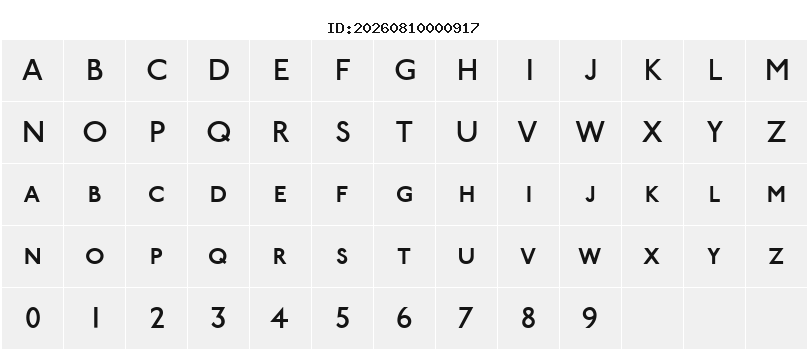
PaddingtonSC Preview
• Font Name: PaddingtonSC
About PaddingtonSC.ttf
PaddingtonSC.ttf is a modern, elegant sans-serif font designed for ultimate readability and visual harmony. Perfect for branding, headlines, web design, and print materials.